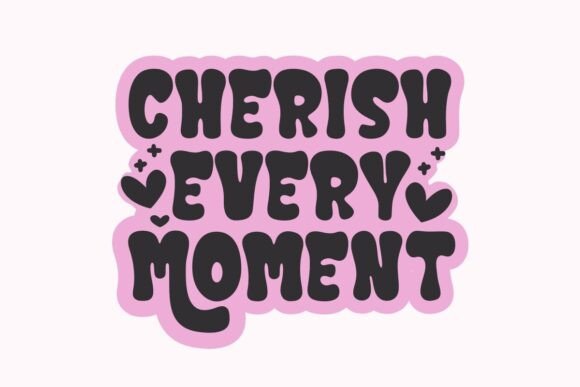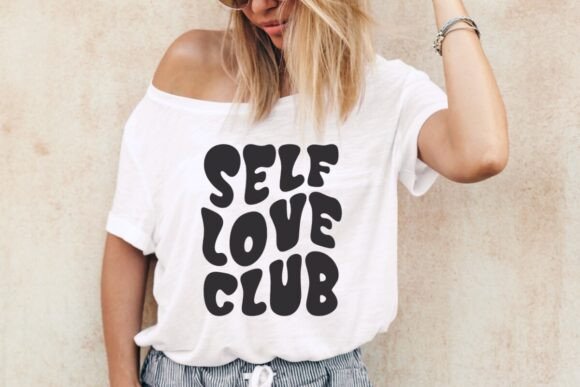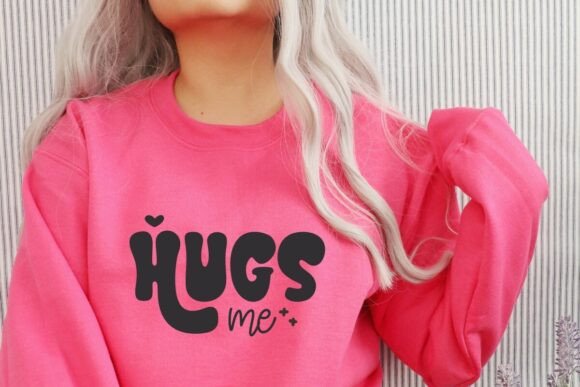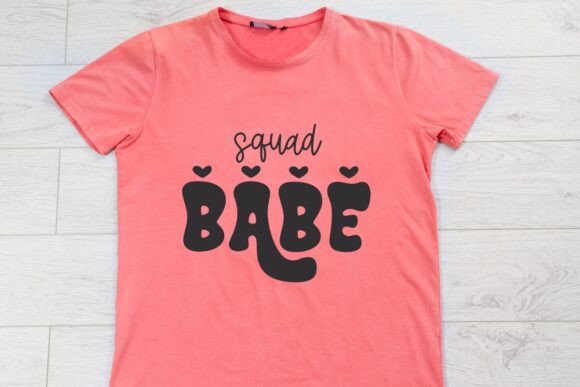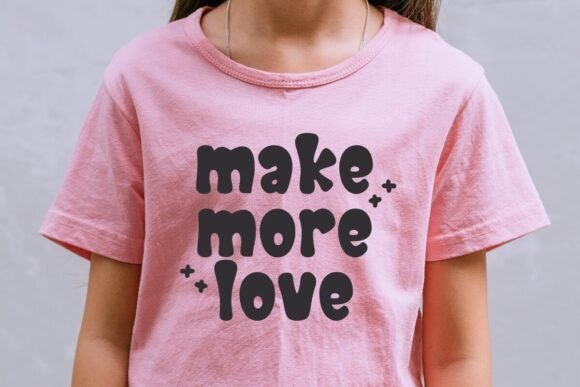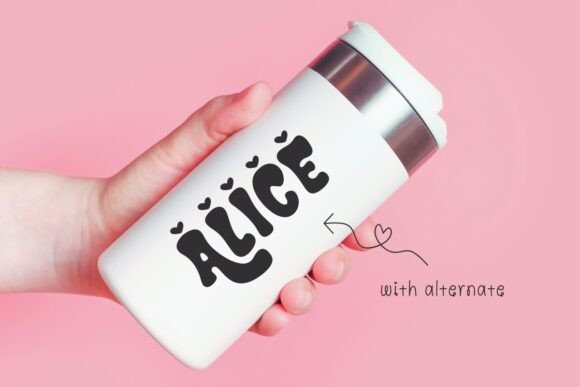
Unleash the Groovy Vibes with Darling Groove Font
Are you ready to add a touch of whimsy and charm to your designs? Look no further than the captivating Darling Groove Font! This enchanting font is sure to mesmerize your audience with its unique alternate uppercase letters that exude a sense of playfulness and fun. In this article, we’ll dive into the world of Darling Groove and explore its endless possibilities for designers and crafters.
The Allure of Darling Groove
Darling Groove is more than just a font – it’s an experience! Its distinct alternate uppercase letters are carefully crafted to capture everyone’s attention, making it perfect for a wide range of design projects. Whether you’re a seasoned designer or a crafty DIY enthusiast, this font is sure to inspire your creativity and take your designs to the next level.
Ideal for Various Design Projects
Darling Groove is an incredibly versatile font that can be used for a multitude of design projects. Here are some ideas to get you started:
- T-shirt designs: Add a groovy touch to your tees with Darling Groove. Its playful vibe makes it perfect for casual wear, band tees, or even quirky merchandise.
- Expressive quotes: Use Darling Groove to add a touch of personality to your quotes, posters, or social media graphics. Its unique letters will make your message stand out from the crowd.
- Personalized tumblers and mugs: Give your drinkware a personalized touch with Darling Groove. This font is sure to make your tumblers and mugs stand out and become a conversation starter.
- Tote bags: Add a dash of charm to your tote bags with Darling Groove. Perfect for grocery shopping, beach trips, or everyday errands.
Make it Special with Darling Groove
Darling Groove is not just limited to everyday designs; it’s also perfect for special occasions. Here are a few ideas to make your celebrations even more memorable:
- Birthday cards: Create personalized birthday cards with Darling Groove and make the recipient feel extra special.
- Valentine’s Day: Cast a spell of love with Darling Groove this Valentine’s Day. Use it to create romantic messages, gift tags, or even personalized gifts.
Why Choose Darling Groove?
So, what sets Darling Groove apart from other fonts? Here are a few reasons why designers and crafters love this enchanting font:
- Unique and eye-catching: Darling Groove’s alternate uppercase letters make it a one-of-a-kind font that’s sure to grab attention.
- Playful and whimsical: This font exudes a sense of fun and playfulness, making it perfect for designs that require a touch of personality.
Tips and Tricks for Using Darling Groove
To get the most out of Darling Groove, here are a few tips and tricks to keep in mind:
- Experiment with colors: Darling Groove looks great in a variety of colors, so don’t be afraid to experiment and find the perfect hue for your design.
- Mix and match: Combine Darling Groove with other fonts or graphics to create a unique and eye-catching design.
- Keep it simple: Don’t overcomplicate your design. Darling Groove is perfect for simple, yet effective designs that make a statement.
| Font Name | Darling Groove Font |
| Author | Sakti Avellin |
In conclusion, Darling Groove Font is a must-have for designers and crafters looking to add a touch of whimsy and charm to their designs. With its unique alternate uppercase letters, playful vibe, and versatility, this font is perfect for a wide range of design projects. Whether you’re creating t-shirt designs, personalized tumblers, or special occasion cards, Darling Groove is sure to inspire your creativity and take your designs to the next level. So, what are you waiting for? Immerse yourself in the captivating allure of Darling Groove and unleash your creativity!